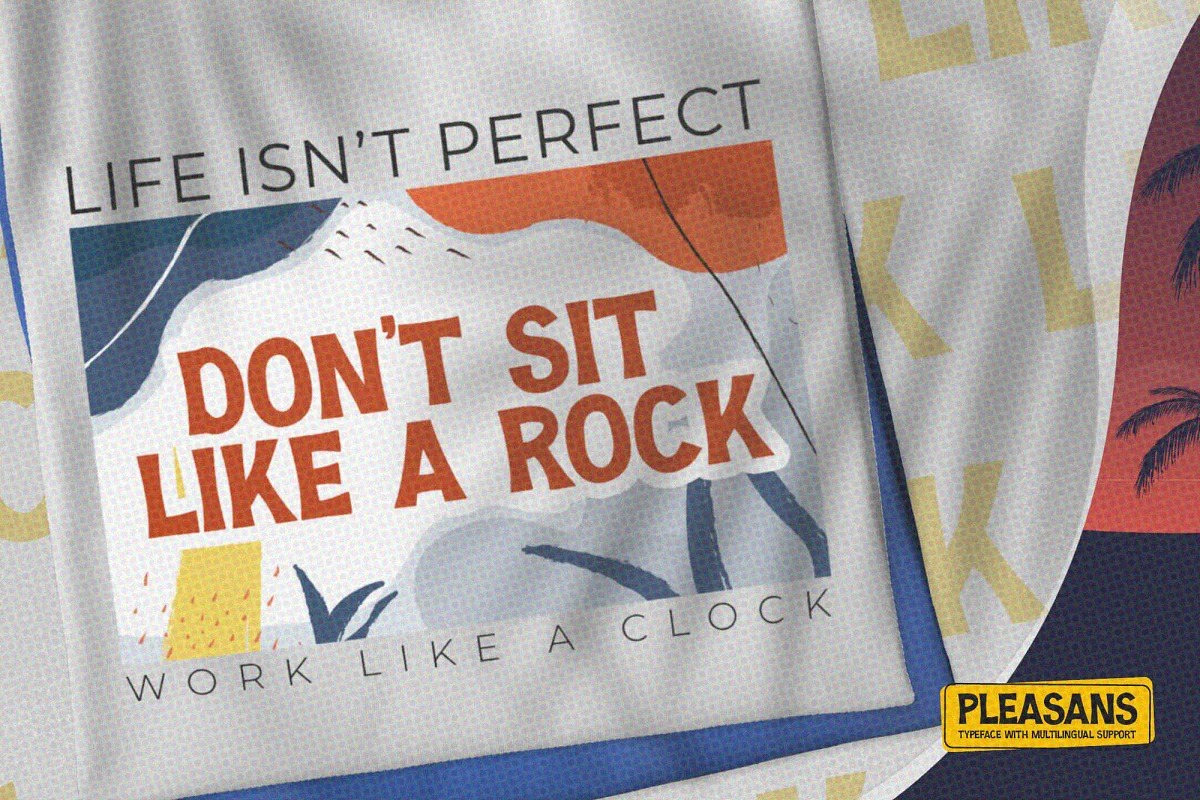
Pleasans Display Font
This typeface is a stylish font It has both modern and retro look. The Pleasans font inspired by famous logos of Technology and brands that have very strong characteristics, very suitable for posters, packaging, branding, logotype and more.
Pleasans font with strong and challenging nuances. very suitable for the title, typography, Poster, magazines, brochures, packaging, Websites and much more for your design needs, making your designs more modern and professional.